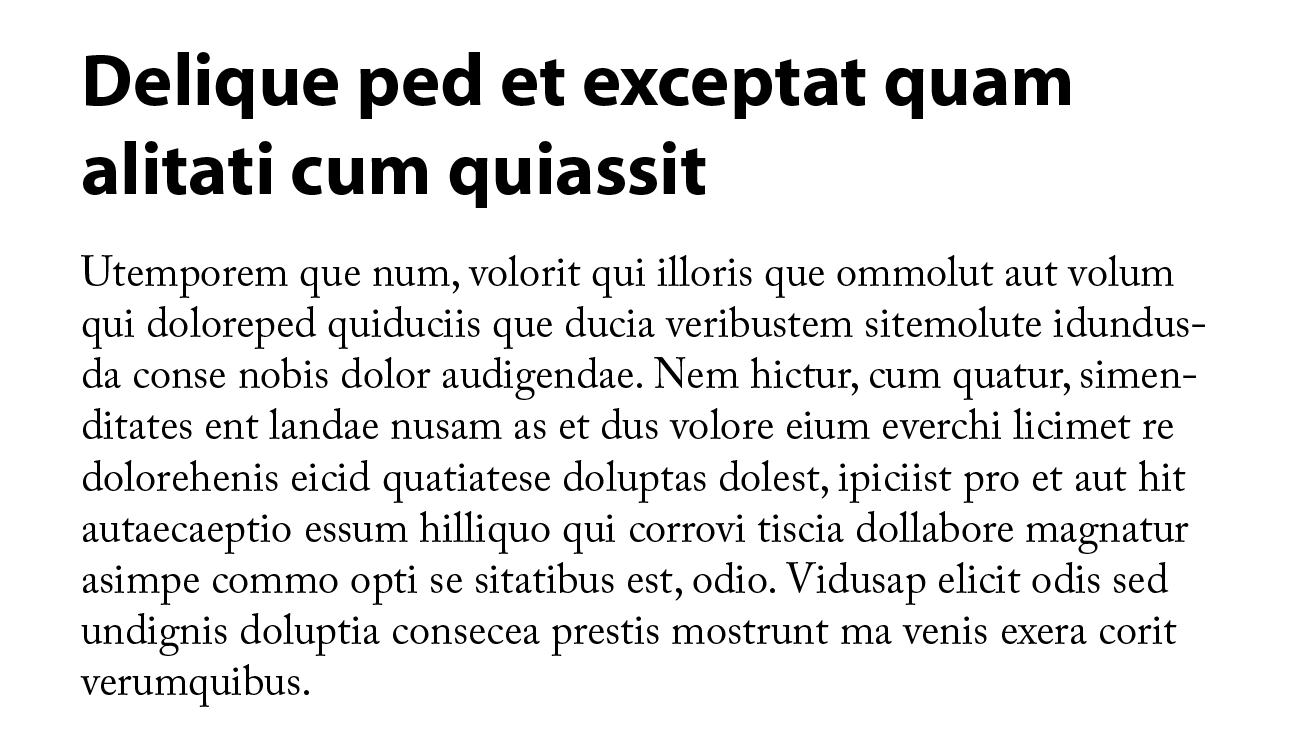
Needing help with font combinations for my book.
Certain fonts are recommended for certain types of books, my book is going to be non-fiction and political in nature so I'm thinking of using Constantia or Caslon font for the body of my book because it's stated to be good for non-fiction and easy to read (unless you know a better font.)  The goal I have is that I want the chapter titles to convey a sense of importance and be a bit more dramatic than the body.   Something that contrasts the body of the book but is still appropriate to use with Constantia or Caslon.
Here's one helpful quote I read to choose my body...
"Nonfiction books commonly use a sans-serif font in the chapter headings and subheadings, and a serif font such as Constantia in the body. The heading for this Introduction uses Helvetica font and the body uses Constantia font."
Since books have a formula that's been tried and tested with successful results, I don't want to make a beginners mistake.  If it's recommended to use a sans-serif font in the chapter headings are there are proper ones to go with Constantia and Caslon, (ones which are more dramatic, illustrate a sense of importance, and are good for non-fiction)?  Sorry if that's a lot and too specific. :sad:
Thanks for that.  What about Constantia as the body, is there a good one to go with that as chapter titles, or a rule of thumb for that one?
Also, how do I learn which fonts are humanist, or some other style?  If it's good to stick within the same style for chapters and the body of the text, perhaps a layout of fonts and their properties would help.
To give you more information on what I'm aiming for, I'm not settled on which fonts to use for my political book yet.  Although it's non-fiction and educational in nature, it'll also be presented in a fashion that's meant to grab attention. It'll present exciting new ideas and, at times, expose shocking wrongs in our society in various political groups.  Caslon, I went to initially because it was said to be good for educational non-fiction books, but I'm wondering if that font is going to come off to some as if it were a math book.   I'm open to any tips you're willing to give.